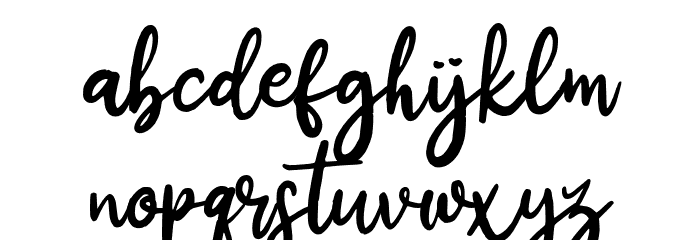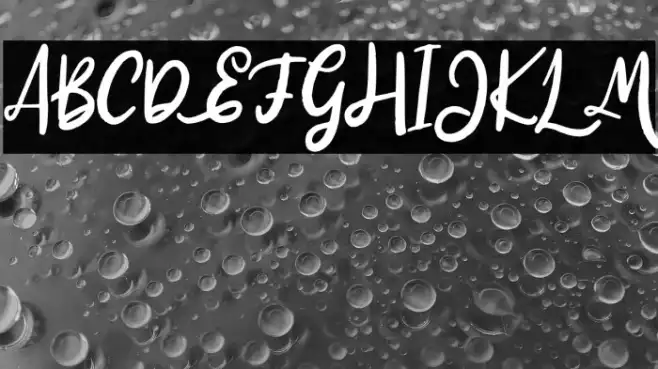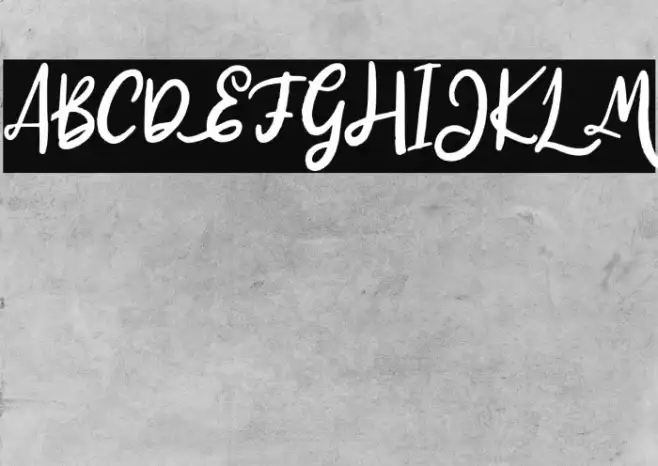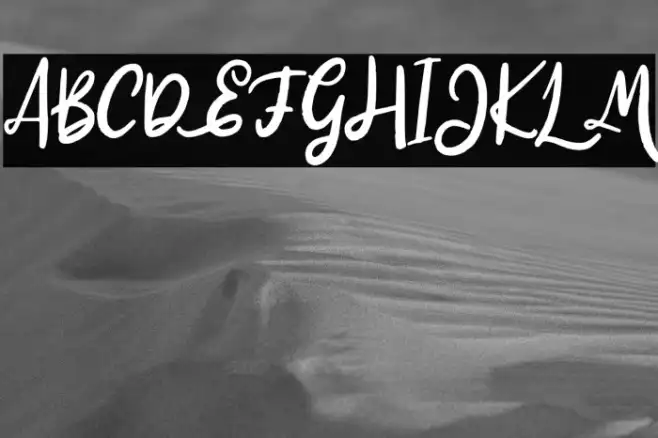
DistrikFREE Font
This font features a lively and dynamic script style with a handwritten appearance. The letters are characterized by their fluid, cursive strokes and playful loops, giving it a personal and informal feel. The uppercase letters are bold and expressive, while the lowercase letters maintain a consistent flow, enhancing readability. The font's design includes unique flourishes and varying stroke widths, adding to its charm and versatility. It is well-suited for creative projects that require a touch of elegance and individuality. The overall design is both modern and timeless, making it adaptable to various design needs.
A lively, handwritten script font with playful loops and dynamic strokes.
- Font: DistrikFREE
- Proposed Projects: Ideal for invitations, greeting cards, branding, social media graphics, and personal projects.
- Use Case: Logos, Headlines, Invitations